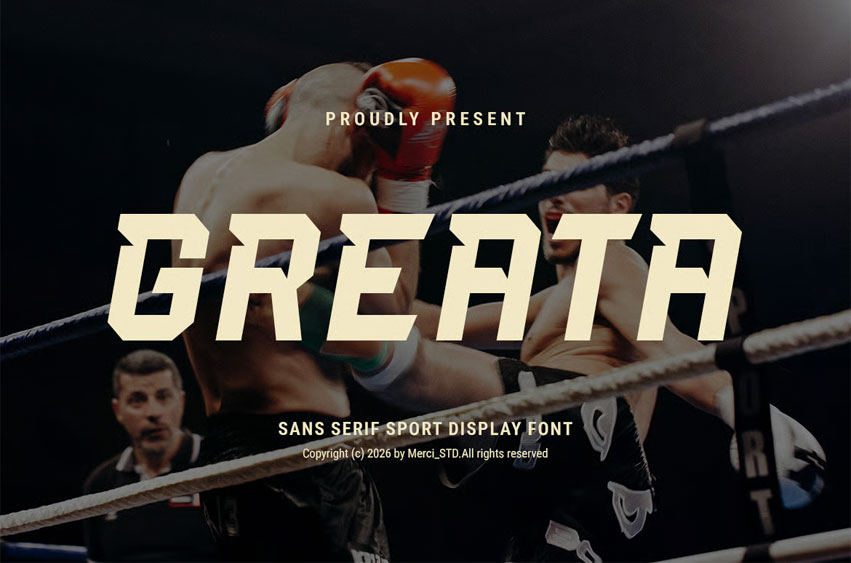
Greata Font is a modern sport display font with sharp edges and dynamic structure. Perfect for sports branding, esports design, posters, and energetic visual content.
• Unique Hand-Drawn Style